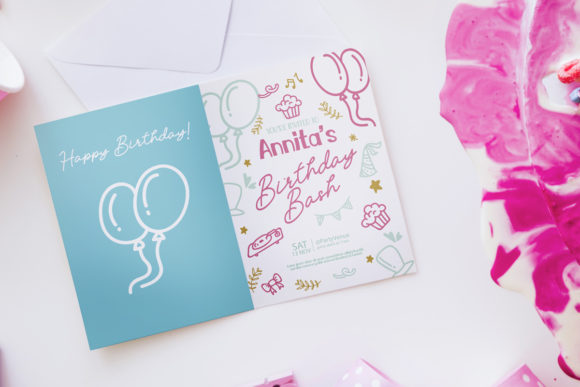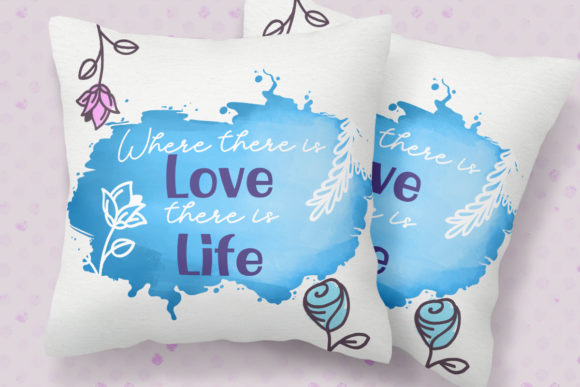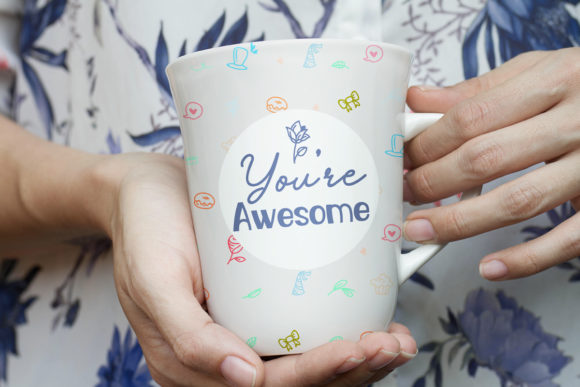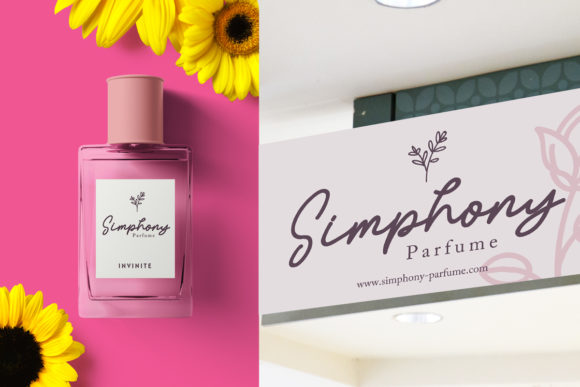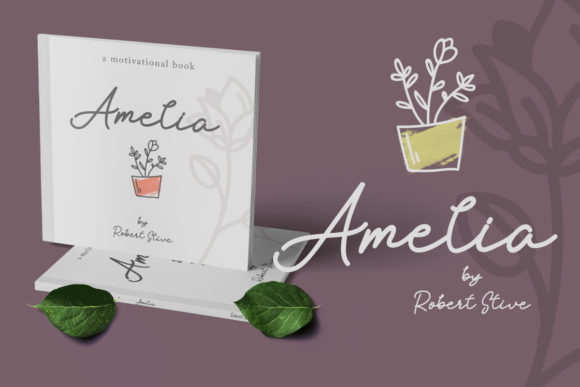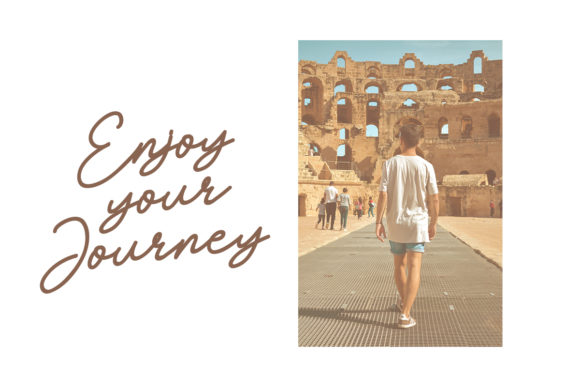
The Perfect Party Companion: Awesome Party Font
Remember the thrill of planning a surprise birthday party for a loved one? The excitement builds up as you brainstorm ideas, send out invitations, and curate the perfect playlist. But, let’s be honest, it’s the little details that truly make the party pop – like the custom invitations and decorations that reflect the birthday person’s style. That’s where the Awesome Party Font comes in – a beautiful font duo that’s sure to elevate your designs and make them truly unforgettable.
This adorable display font pairs perfectly with its accompanying script, making it the perfect companion for designers looking to add a touch of whimsy and personality to their projects. Whether you’re working on branding, wedding designs, or invitations, the Awesome Party Font is sure to make your creations stand out from the crowd.
Awesome Party Font Key Features
- Font Family: Awesome Party Font is a unique, hand-drawn font designed for party and celebratory themes. It includes a variety of swashes, flourishes, and decorative elements.
- Character Set: The font includes a wide range of characters, including uppercase and lowercase letters, numbers, punctuation marks, and special symbols, making it suitable for various applications.
- Unique Characteristics: The font’s unique hand-drawn style, with its swashes and flourishes, makes it stand out from other fonts. It’s perfect for creating eye-catching party invitations, posters, and other celebratory materials.
Awesome Party Font Review
First off, I love the playful vibe of Awesome Party Font! ✨ The unique, cursive style is perfect for adding a touch of whimsy to party invitations, social media graphics, or even festive signs. The font’s rounded edges and lively feel immediately evoke a sense of celebration.
However, I do have some concerns about its versatility. ⚠️ While it’s great for party-themed projects, Awesome Party Font may not be the best choice for more formal or professional designs. The font’s casual nature can come across as unprofessional or immature in certain contexts.
Here are a few things to keep in mind when working with Awesome Party Font:
- It’s a display font, so it’s best used in larger sizes for maximum impact.
- The font doesn’t come with a comprehensive character set, so you may need to supplement it with other fonts for more complex designs.
- Be cautious when using Awesome Party Font for text-heavy designs, as the cursive style can make it difficult to read.
Overall, I think Awesome Party Font is a fun and creative addition to any designer’s toolkit. While it may not be the best choice for every project, it’s perfect for adding a touch of personality to party-themed designs.
Awesome Party Font is perfect for creating eye-catching titles, headings, and party invitations. It’s also great for adding a fun and playful touch to social media graphics, flyers, and posters.
Some popular use cases include:
– Party invitations and decorations
– Social media graphics and promotions
– Event flyers and posters
– Blog post titles and headings
Alternatives to Awesome Party Font
Cream Soda is a unique, handwritten font that is perfect for adding a touch of whimsy to designs. It’s great for use in food and beverage branding, as well as in designs that require a casual, laid-back tone. Compared to Awesome Party Font, Cream Soda has a more rustic and organic feel, making it a great choice for designers who want to add a sense of authenticity to their designs.
Q: Does Awesome Party Font support multilingual characters and special symbols?
Yes, the Awesome Party Font supports a wide range of languages, including Latin, Cyrillic, Greek, and many others. It also includes a comprehensive set of special symbols, emojis, and icons. However, the font’s multilingual support may vary depending on the specific language and character set. You can check the font’s character map or consult the documentation for more information.